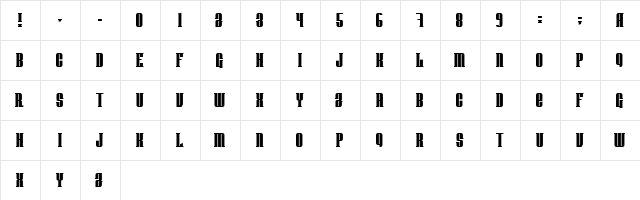
Donnie Normal
Design Context for Donnie Typeface
Donnie is a composed and adaptable typeface that performs quietly and consistently across a wide range of design contexts.